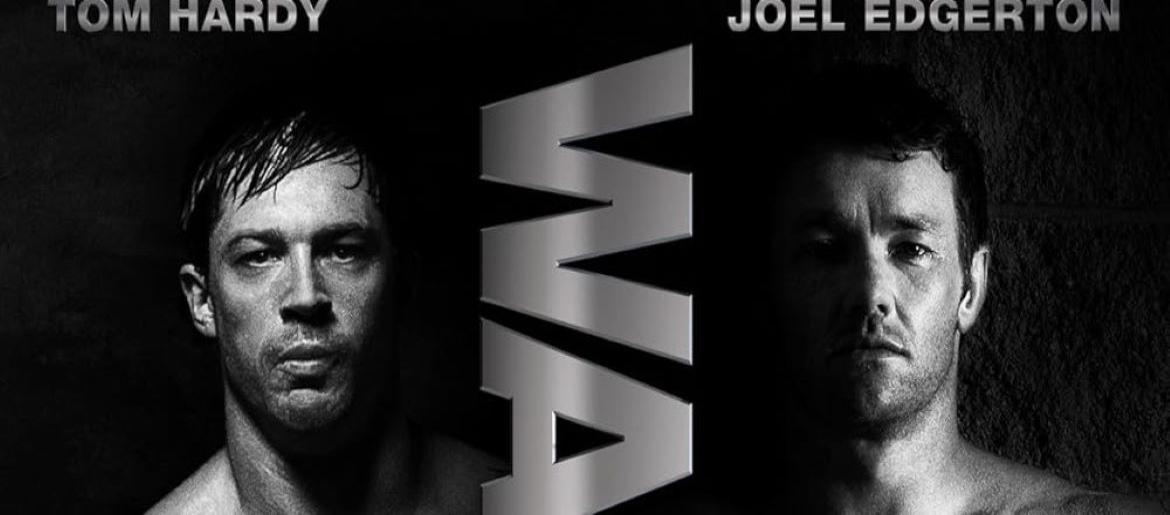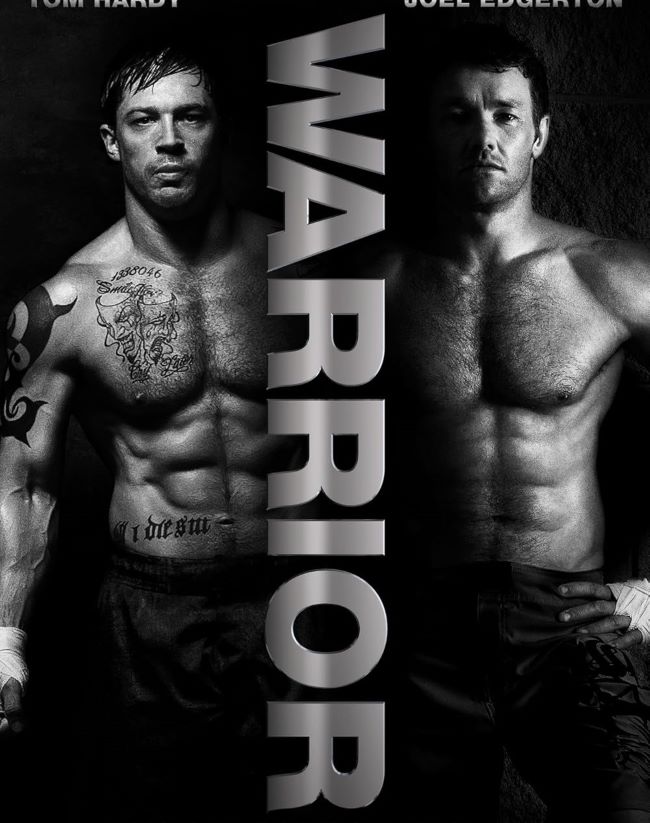
The Warrior font packs a punch just like the movie itself. Warrior (2011) is a gripping story of two estranged brothers thrown into the brutal world of mixed martial arts, and the typography mirrors that raw, high-stakes energy. Strong, angular, and heavy, the lettering conveys power, tension, and determination—perfect for a story where every fight counts.
I think what makes the Warrior font so compelling is how it embodies strength without being overcomplicated. Its bold, blocky style immediately grabs attention, signaling action and resilience. Designers often replicate this look with stencil-like or heavy sans-serif fonts such as Impact, Bank Gothic, or Haettenschweiler to create that same punchy, aggressive feel.
This font is perfect for projects that need grit, intensity, and a sense of raw energy. Posters, sports branding, or action-themed designs instantly benefit from a typeface that feels like it could take a hit and keep standing—just like the film’s characters.